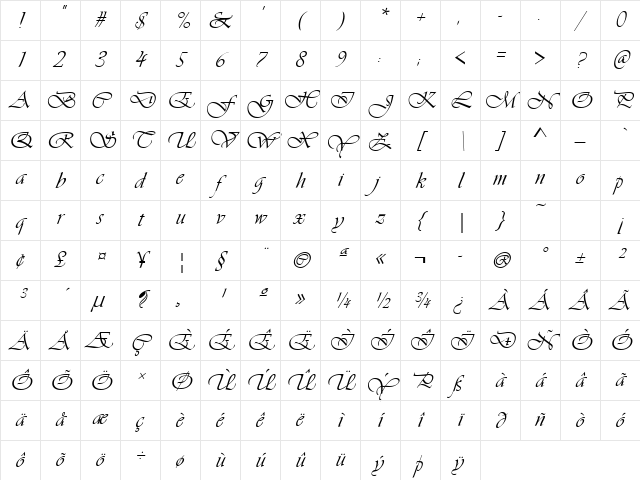
Vivaldi Italic
Vivaldi Family
Design Context for Vivaldi
Vivaldi is a composed and adaptable typeface that performs quietly and consistently across a wide range of design contexts. The slanted form adds forward momentum and visual energy.
Pro Tip: Use Vivaldi for emphasis, pull quotes, and subheadings where its slanted energy can add rhythm to the layout.